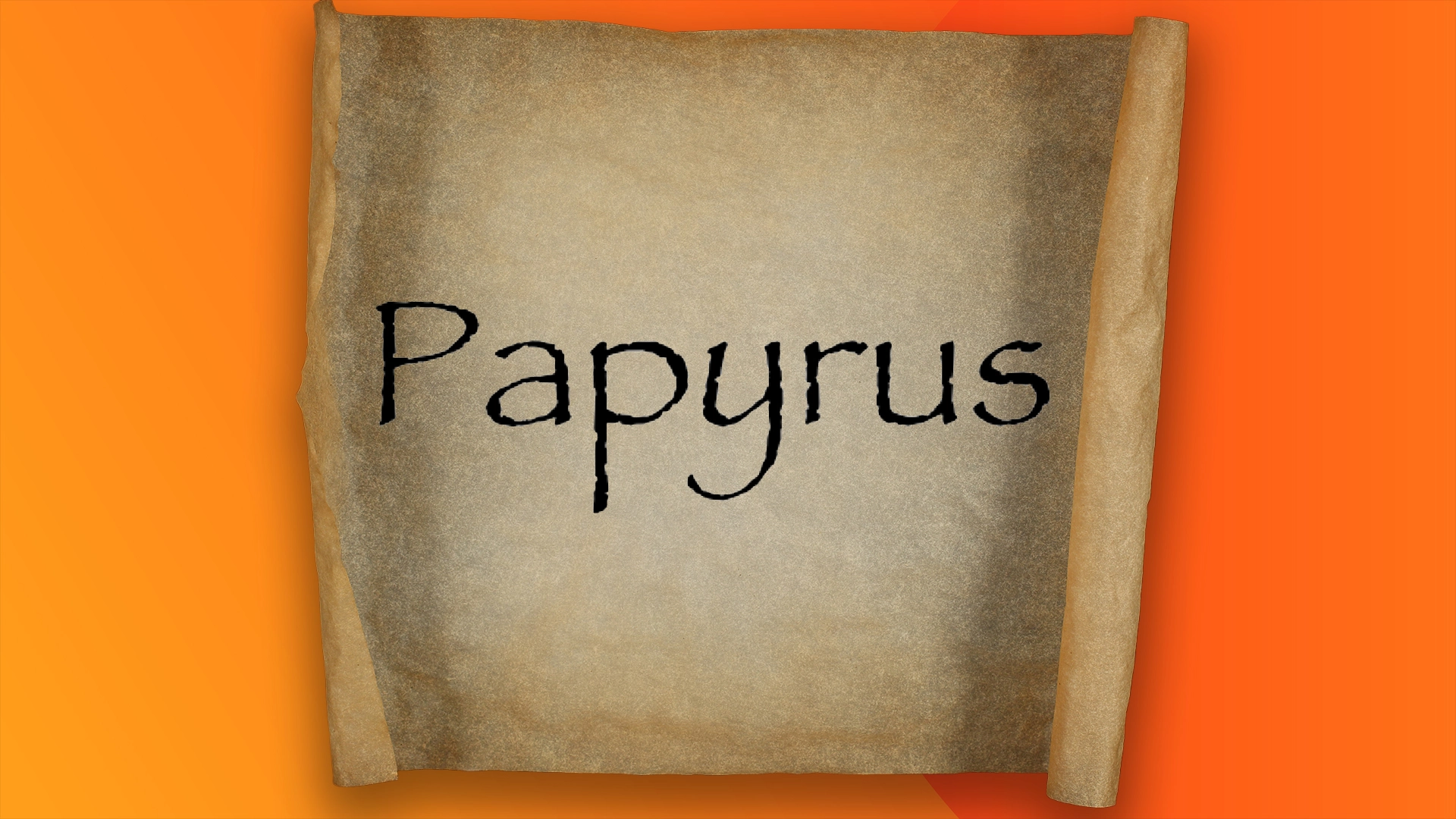
Oh look, everyone is laughing at the Papyrus font again
"It's totally useless."
For many designers there are a handful of blacklisted fonts that will never get to grace a creative project – many for good reason. Whether it's an outdated design or simply just terrible typography, these condemned fonts have fallen out of fashion, and none is quite so revered as humble Papyrus.
While it might be one of the most iconic script fonts, Papyrus has experienced the peaks and dips of popularity, leading it to become one of the most infamous typefaces in the modern creative sphere. Whether you love it or loathe it, the influence of Papyrus can't be ignored, but that can't (and won't) stop designers from roasting it any chance they can get.
Taking to the r/graphic_design subreddit, user u/Mazortex asked "What do you think when you see this font?", inviting creatives to share their opinion of the ever-divisive Papyrus. A flood of comments soon hit the thread, with many quick to share their unflattering associations.
"Shakira merch. Off-brand teas. Hookah bars," one commenter responded. "90s Christian Rock bands," another chimed in, while one designer claimed it was " The worst font next to Comic Sans".
For others, it evoked a more visceral response. "It's part of the greasy spoon cafe starter pack here in Ireland: Sticky floor; Plastic tablecloth with dried on lumps of ketchup; Black flecks on all fried food from constantly reusing the same burnt oil; Powerful aroma from bathroom due to some decades old unaddressed plumbing issue; Cheap cutlery that gives every meal a metallic aftertaste; Laminated A4 sheet which serves as a menu - title, items and allergens list all set in Papyrus," another user added.
One of the most common Papyrus associations is, of course, the Avatar logo (that still haunts actor Ryan Gosling to this day, as seen above). Many on the subreddit agreed that internet memes had killed the font's unique appeal, while others claimed the font was severely overplayed, losing its charm over time. "For probably 20 years I've thought 'That's a cool font, I wish I could use it sometime without it looking stupid', but I never can, it's totally useless. I just did a project on ancient Egypt and still couldn't find a place for it!" one commenter reflected.
Despite its unsavoury connotations, I can't help but feel a little sorry for ol' Papyrus. Admittedly, it's not as universal as other fonts like Helvetica and Futura, but I stand by the fact that it has its own unique charm. Recently, we've seen Comic Sans fall back into favour, and I only wish the same for Papyrus. Justice for our frumpy font friend – while it might not make it into our designs, may it live on in our hearts.